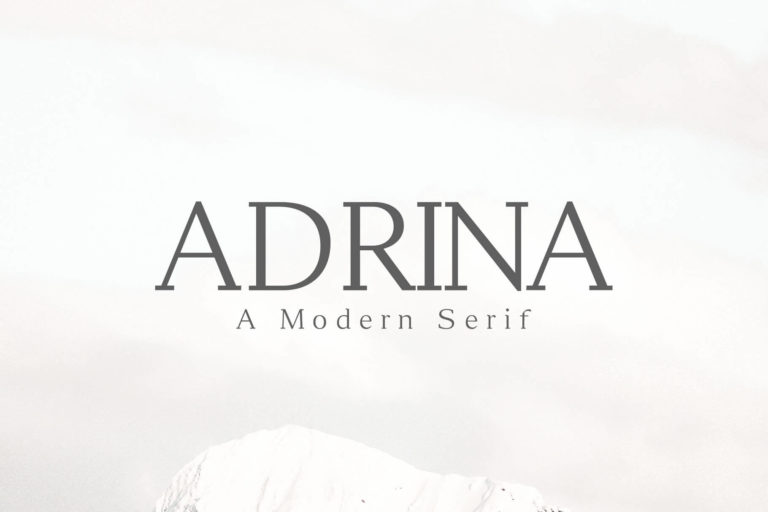
- Adrina Modern Serif Font Family
Adrina Regular
Adrina Round
Adrina Bold
Adrina is a modern rounded serif font with classy unique design. It comes in 3 weights with multilingual support. Adrina will look perfect for headlines, logotypes, signage, advertising, magazine, logos, invitations, texts, posters, notices, titles, name card, web layouts, headers, branding, weddings, social media, product design, stationery, and other any business related.
- Font Weight: Regular, Round and Bold
Font Features:
- Uppercase Letters
- Lowercase Letters
- Number and Punctuation
- Multilingual Support